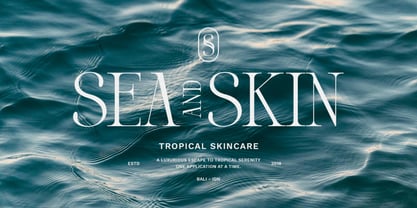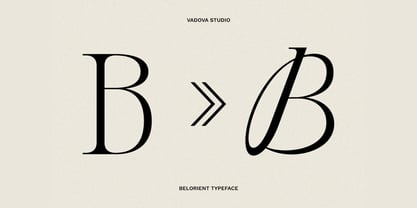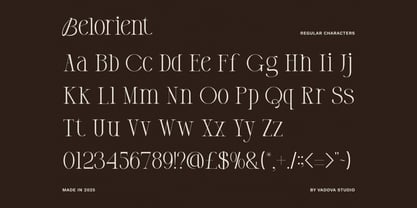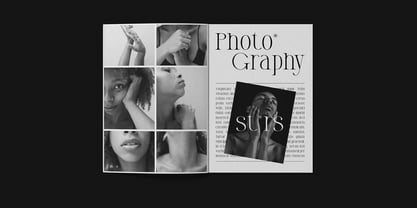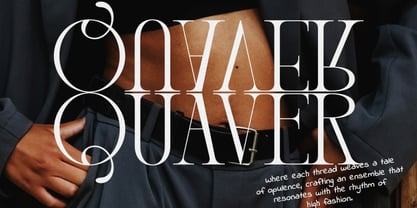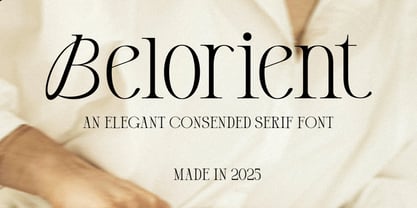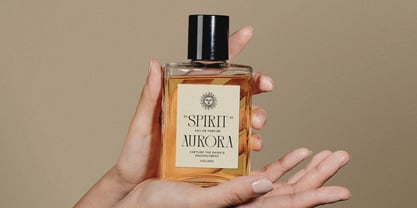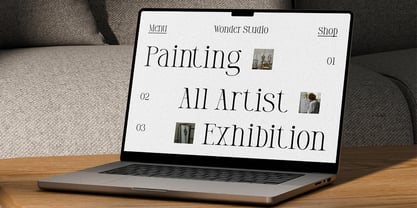
Belorient
Belorient Serif Font is an exquisitely elegant and condensed serif font that radiates sophistication and modern chic. Its slender form and refined curves give it a graceful yet impactful presence, making it ideal for designs that aim to convey luxury, fashion, artistic flair, and understated beauty. This font, made in 2025, is perfectly suited for contemporary aesthetics demanding a touch of timeless class. Suitable for exceptionally versatile, ideal for creating sophisticated branding and elegant logos, particularly for luxury and fashion brands. It excels in editorial layouts, gracing magazine headlines and art features with its refined presence. Perfect for photography portfolios, wedding invitations, and high-end packaging, it adds a touch of premium elegance. This font also suits minimalist website design, beauty brand aesthetics, and stylish social media graphics, ensuring a chic and impactful visual identity across all platforms.